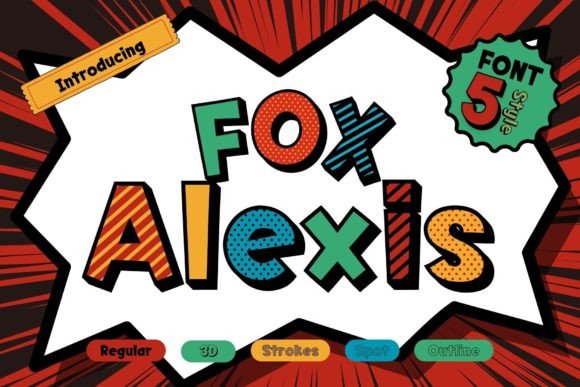
Introducing Fox Alexis Font: The Ultimate Display Font for Captivating Designs
In the world of typography, a font can make all the difference in creating a lasting impression. If you’re looking for a font that exudes energy, playfulness, and vibrancy, look no further than Fox Alexis Font. This 5-style font is designed to add a captivating touch to your designs, making it perfect for attention-grabbing headlines, t-shirt typography, banners, product labels, and more.
The Main Feature: Vibrant and Expressive Design
The main feature of Fox Alexis Font is its vibrant and expressive design. With its unique and playful style, this font is sure to grab attention and leave a lasting impression. The font’s design is carefully crafted to ensure that it stands out from the crowd, making it perfect for designers who want to create bold and eye-catching designs.
Key Features of Fox Alexis Font
- 5 Style Font: Fox Alexis Font comes in 5 different styles, allowing you to choose the perfect one to suit your design needs.
- Cool and Playful: The font’s design is cool and playful, making it perfect for designs that require a youthful and energetic touch.
- Display Font: Fox Alexis Font is a display font, designed to make a statement and grab attention.
- Vibrant and Expressive: The font’s vibrant and expressive design makes it perfect for creating attention-grabbing headlines and titles.
- Versatile: Fox Alexis Font is versatile and can be used for a wide range of design projects, from t-shirt typography to banners and product labels.
Uses of Fox Alexis Font
Fox Alexis Font is a versatile font that can be used for a wide range of design projects. Here are some of the many uses of this font:
Design Projects that Fox Alexis Font is Perfect for:
- Headlines and Titles: Fox Alexis Font is perfect for creating attention-grabbing headlines and titles that make a statement.
- T-Shirt Typography: The font’s playful and energetic design makes it perfect for t-shirt typography.
- Banners and Posters: Fox Alexis Font is perfect for creating eye-catching banners and posters that grab attention.
- Product Labels: The font’s vibrant and expressive design makes it perfect for product labels that need to stand out.
- Branding and Logo Design: Fox Alexis Font can be used for branding and logo design projects that require a bold and eye-catching font.
Benefits of Using Fox Alexis Font
There are many benefits to using Fox Alexis Font for your design projects. Here are some of the main advantages:
Benefits of Using Fox Alexis Font:
- Attention-Grabbing: Fox Alexis Font is designed to grab attention and make a statement.
- Versatile: The font can be used for a wide range of design projects.
- Unique and Playful: The font’s unique and playful design makes it perfect for designs that require a youthful and energetic touch.
- Easy to Read: Despite its playful design, Fox Alexis Font is easy to read, making it perfect for use in headlines and titles.
- High-Quality: Fox Alexis Font is a high-quality font that is designed to deliver exceptional results.
Tips for Using Fox Alexis Font
Here are some tips for using Fox Alexis Font to get the best results:
Tips for Using Fox Alexis Font:
- Use it for Headlines and Titles: Fox Alexis Font is perfect for creating attention-grabbing headlines and titles.
- Experiment with Different Styles: The font comes in 5 different styles, so experiment with different styles to find the one that works best for your design.
- Pair it with Other Fonts: Fox Alexis Font can be paired with other fonts to create a unique and visually appealing design.
- Use it for Branding and Logo Design: The font’s bold and eye-catching design makes it perfect for branding and logo design projects.
In conclusion, Fox Alexis Font is a 5-style font that is designed to add a captivating and energetic touch to your designs. With its vibrant and expressive design, versatility, and eye-catching presence, this font is perfect for attention-grabbing headlines, t-shirt typography, banners, product labels, and more. Whether you’re a designer or a DIY enthusiast, Fox Alexis Font is a great choice for any design project that requires a bold and playful font.